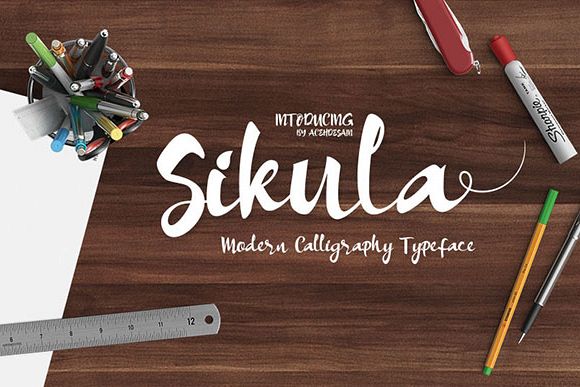
Sikula Font
sikula font
Sikula Font is a beautiful modern calligraphy font every single letters have been carefully crafted to make your text looks beautiful.. This hand-lettered script font will look gorgeous on all your designs, websites, invitations, greeting cards, magazines, business cards, packaging and more!